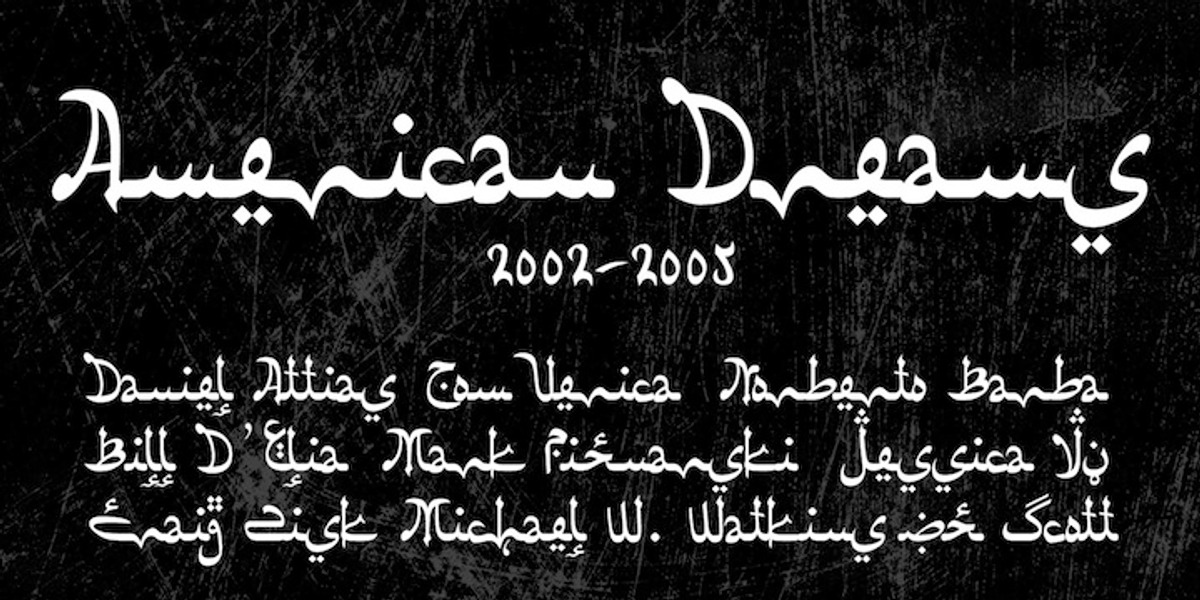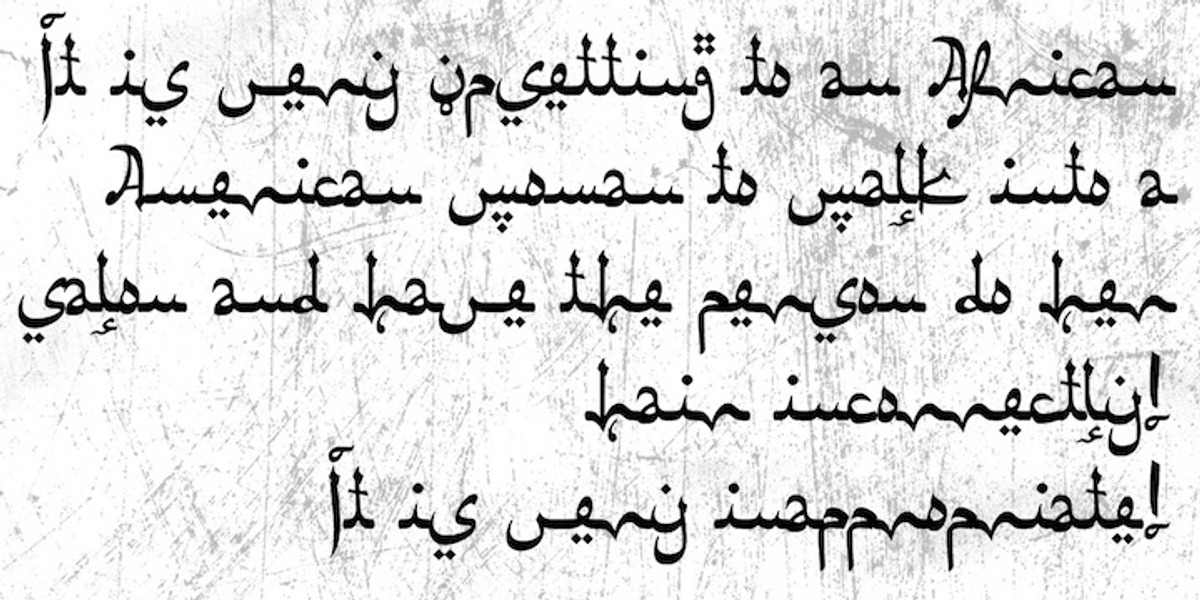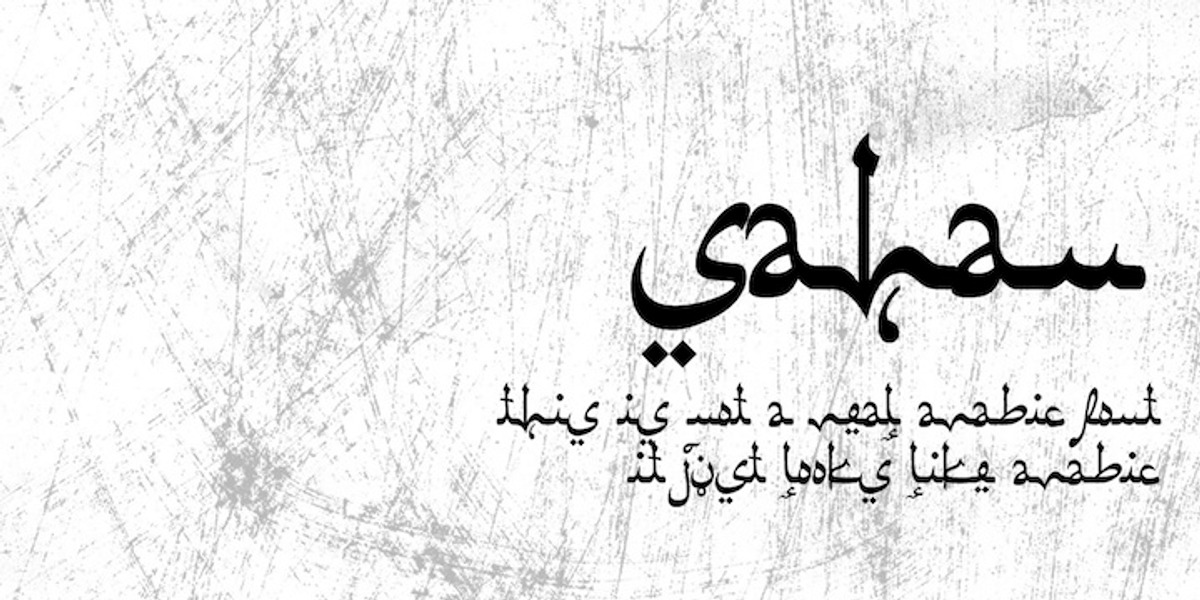
Sahan
Sahan is a display typeface designed to evoke the appearance of Arabic calligraphy. While it resembles Arabic script, it utilizes the Latin alphabet and includes numerals. The font supports a wide range of languages, including Western, Central and Eastern European, Baltic, and Turkish. Its casual script style makes it suitable for eye-catching headlines, branding elements, and editorial design.